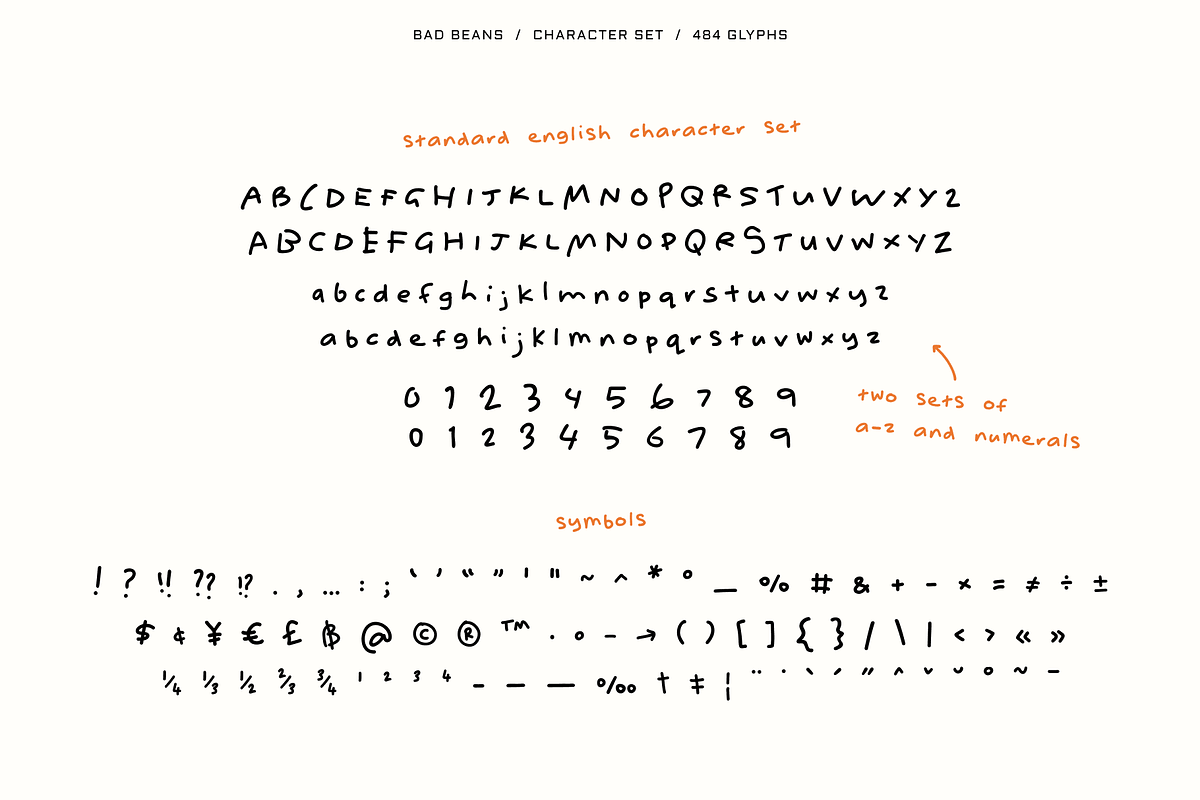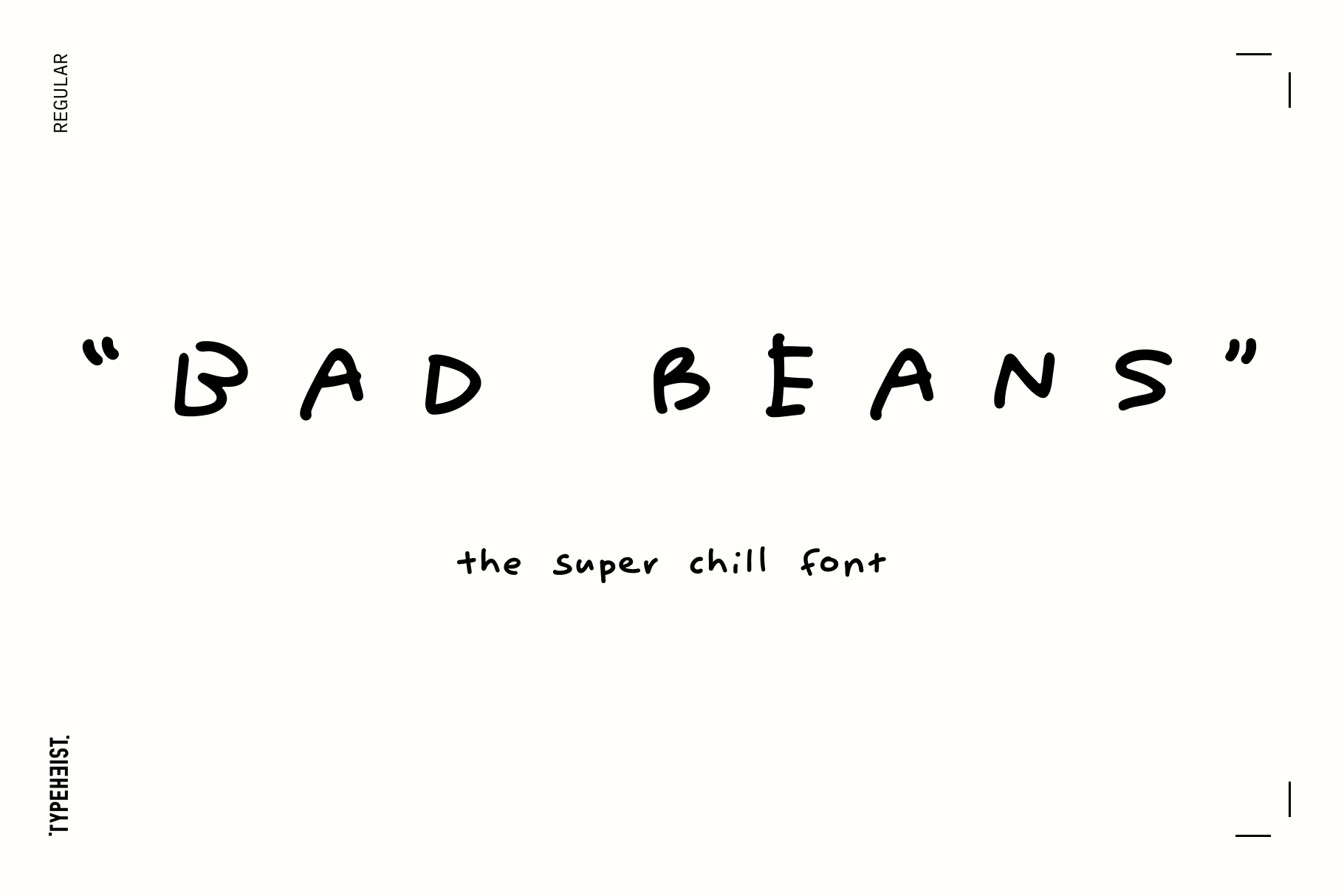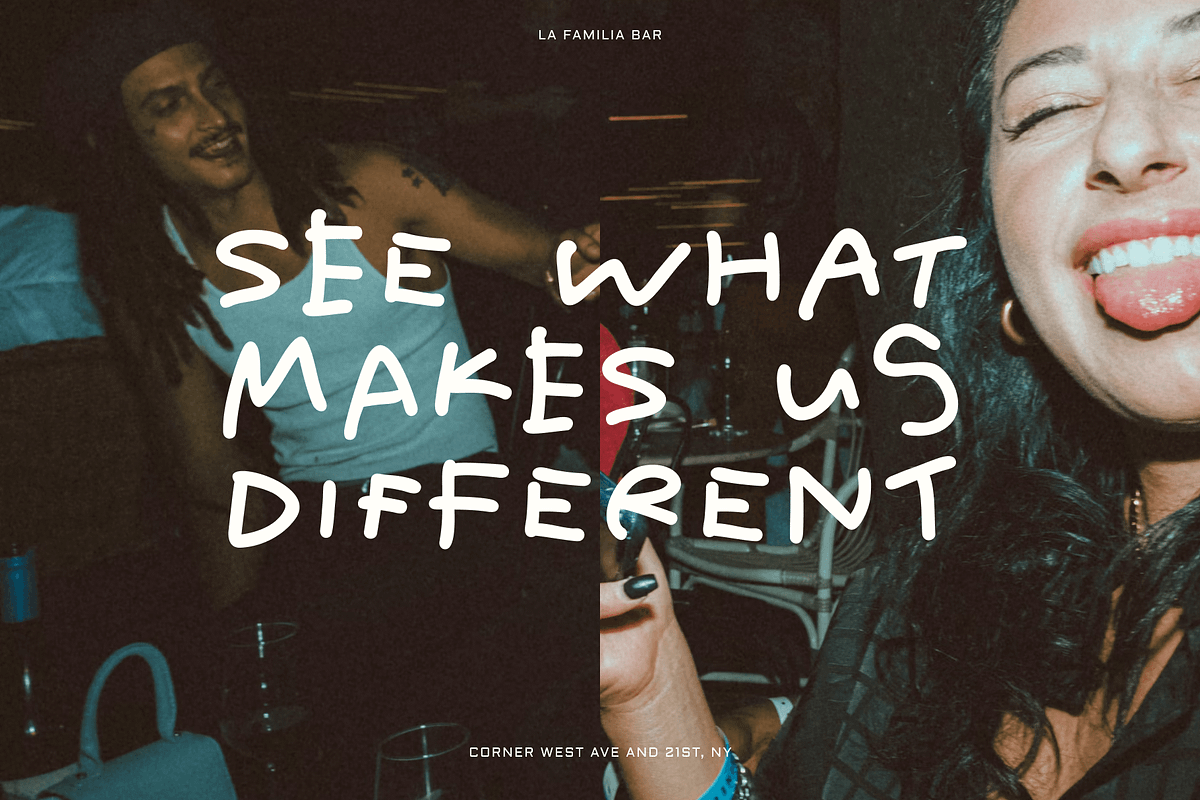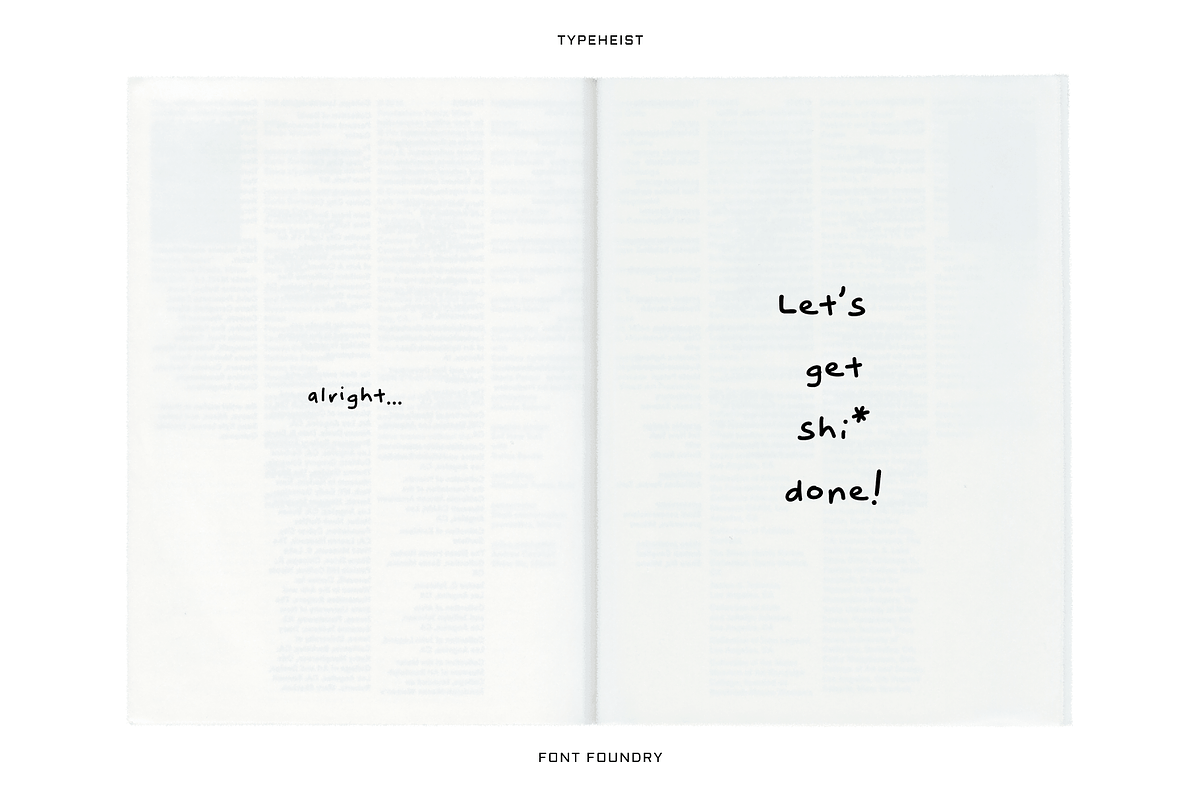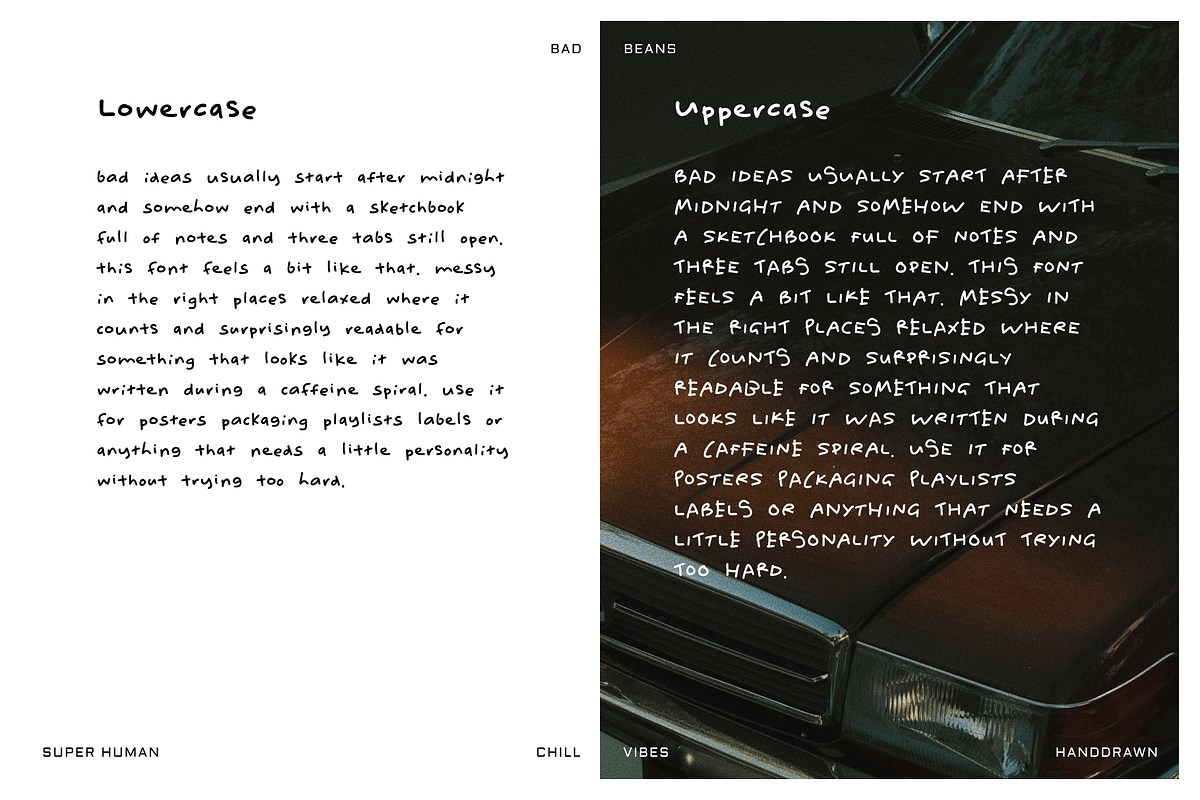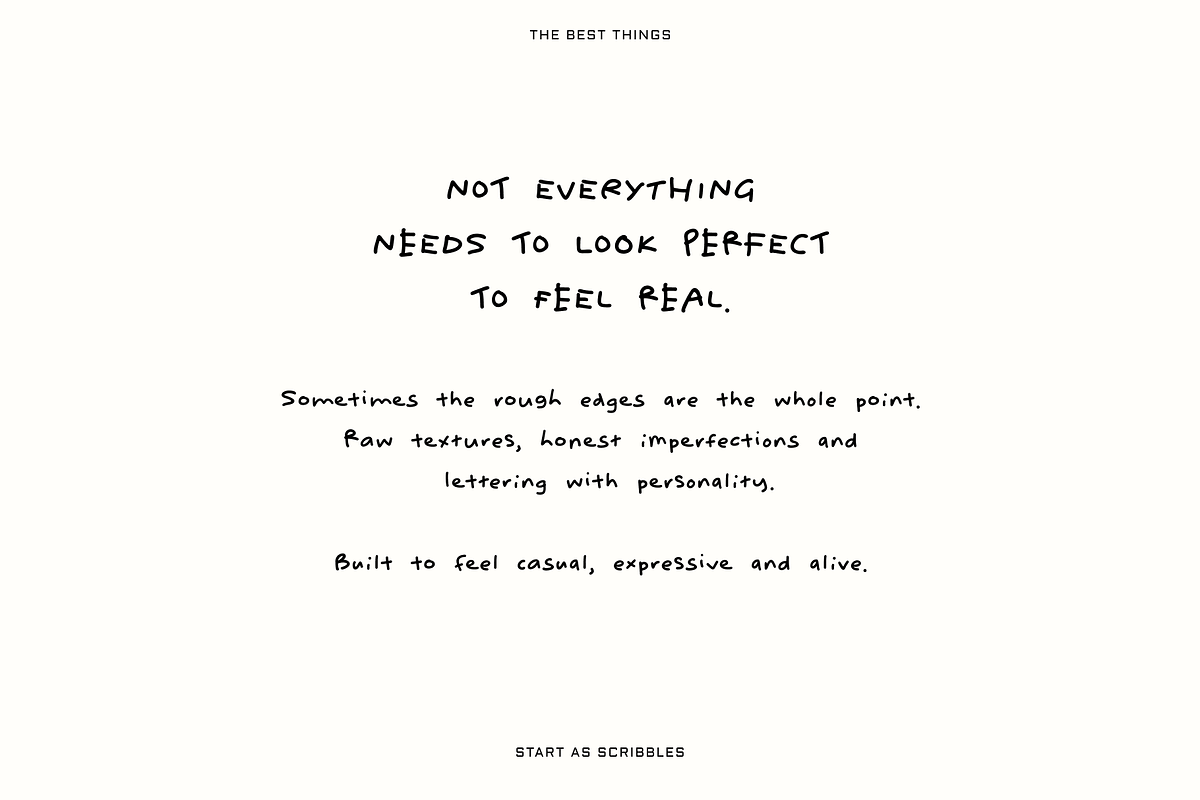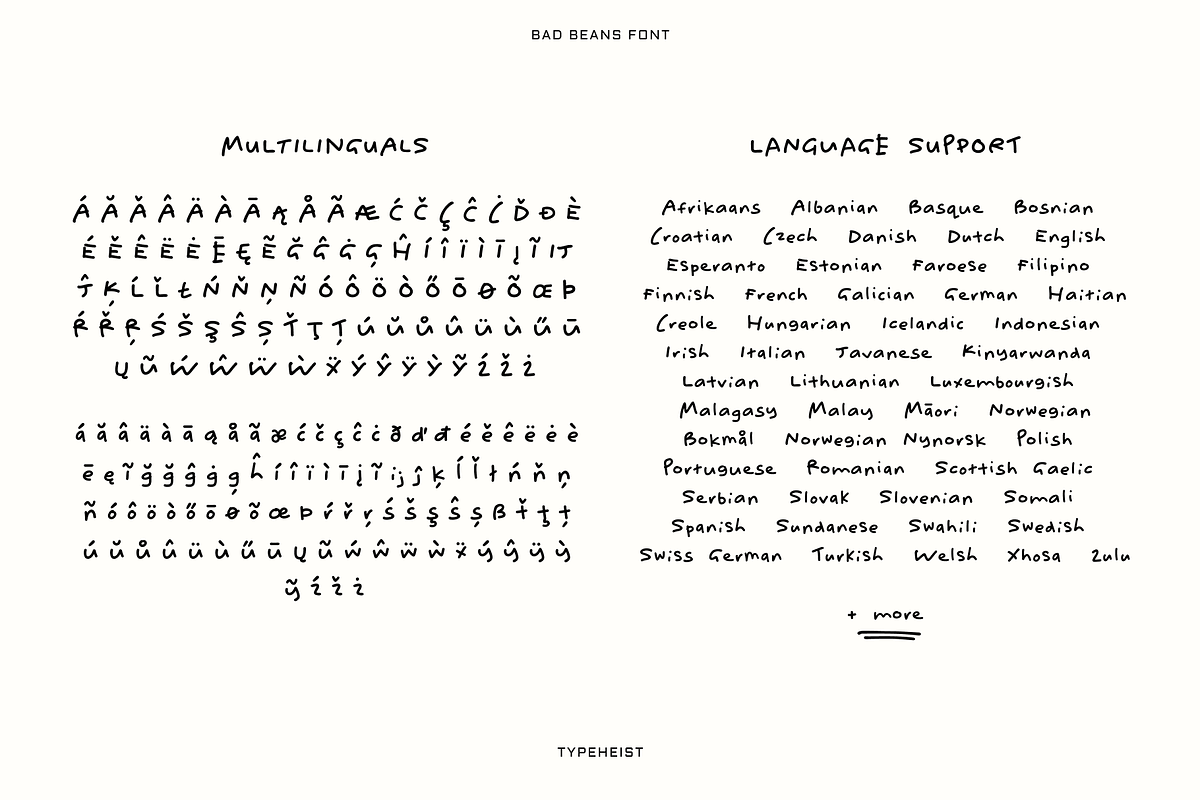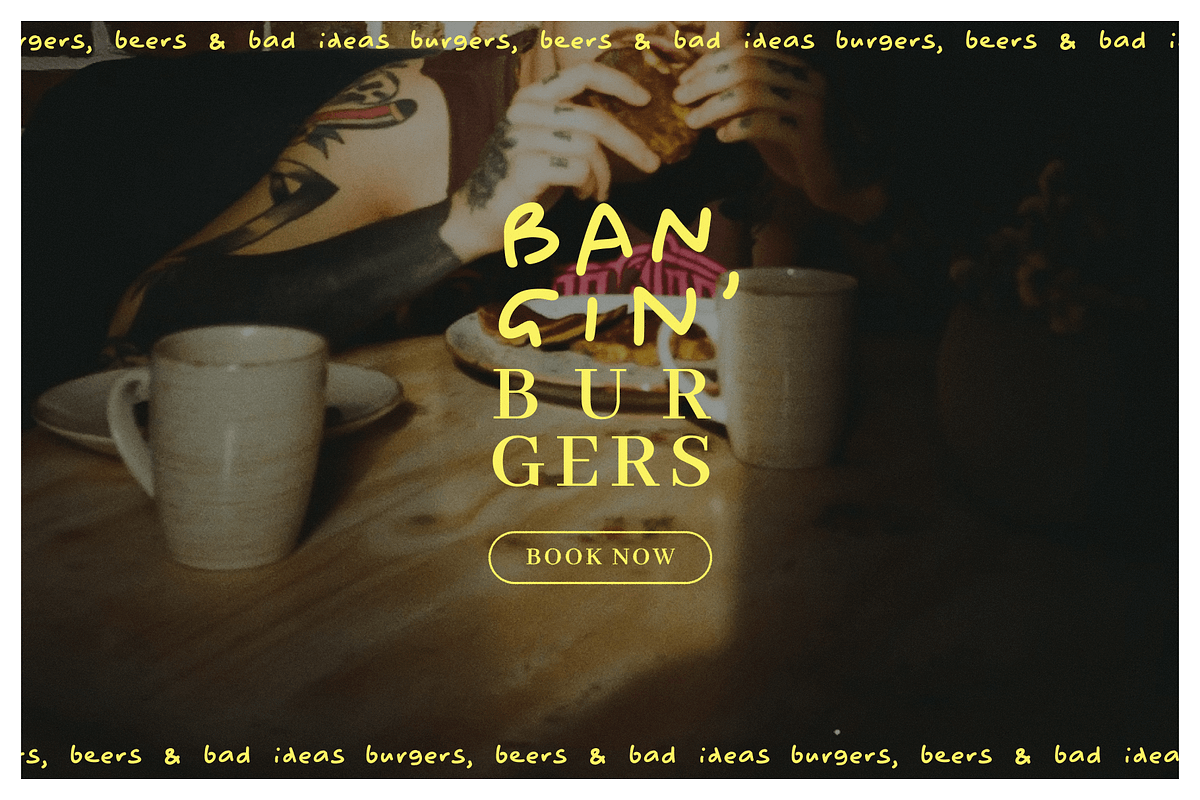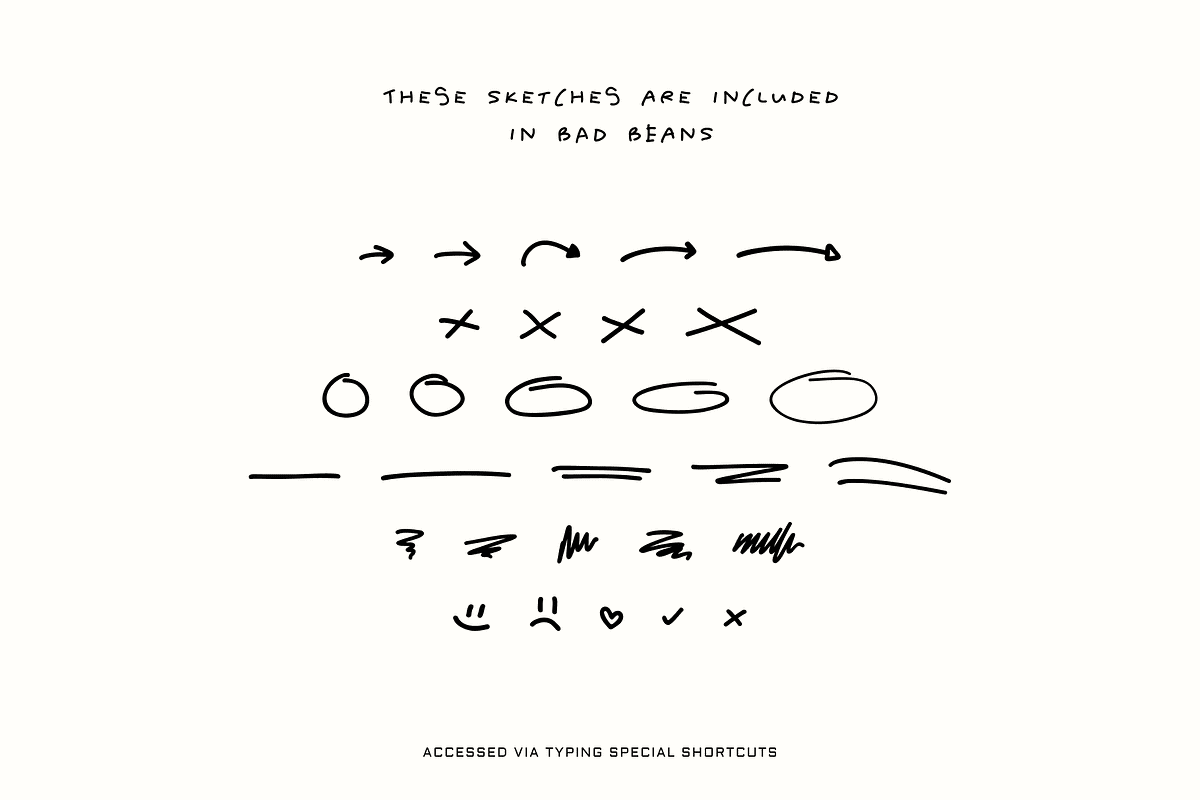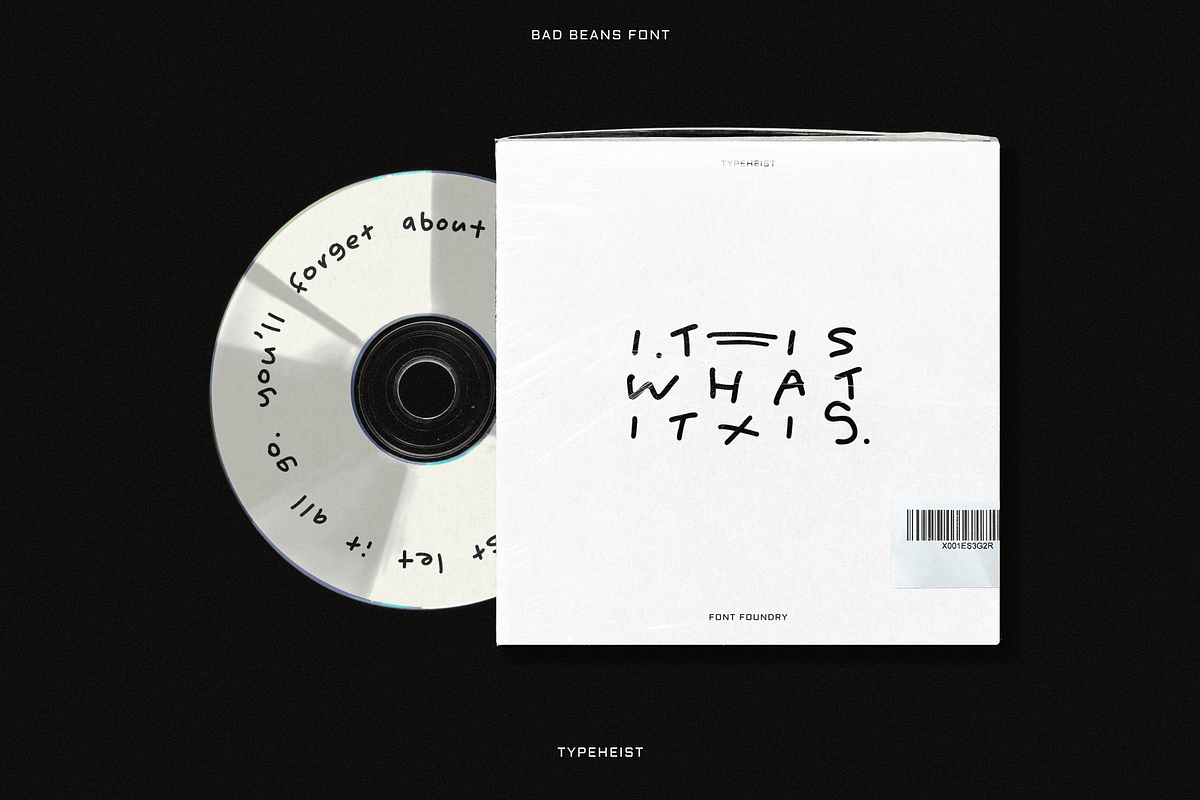
Bad Beans Messy Handwriting Font
The rebellion against all things proper and perfect.
Bad Beans is a messy little throwback to simpler times. Just you, a marker and something to say. No polish, no pressure, no trying too hard.
Inspired by scribbled notes, skatepark doodles, old CDs covered in handwriting and the kind of lettering that accidentally ends up cooler than anything over-designed, Bad Beans leans fully into its imperfections. Uneven lines, wonky shapes and awkward charm are all part of the deal.
Bad Beans includes 484 glyphs and multilingual support for over 100 languages. It also features two sets of contextual alternates that automatically cycle through different letter variations as you type (no obvious repeated characters), creating a super natural handwritten flow.
In a world slowly filling up with polished content and copy-paste perfection, Bad Beans feels comfortably human. Casual, expressive and a little rebellious, like handwriting before handwriting became a “style”.
A total of 484 glyphs
1 additional stylistic sets for characters A-Z, a-z and 0-9
Standard English/Latin characters
Multi-lingual accented characters (try in the tester!)